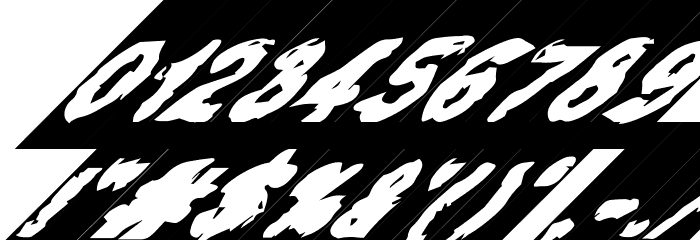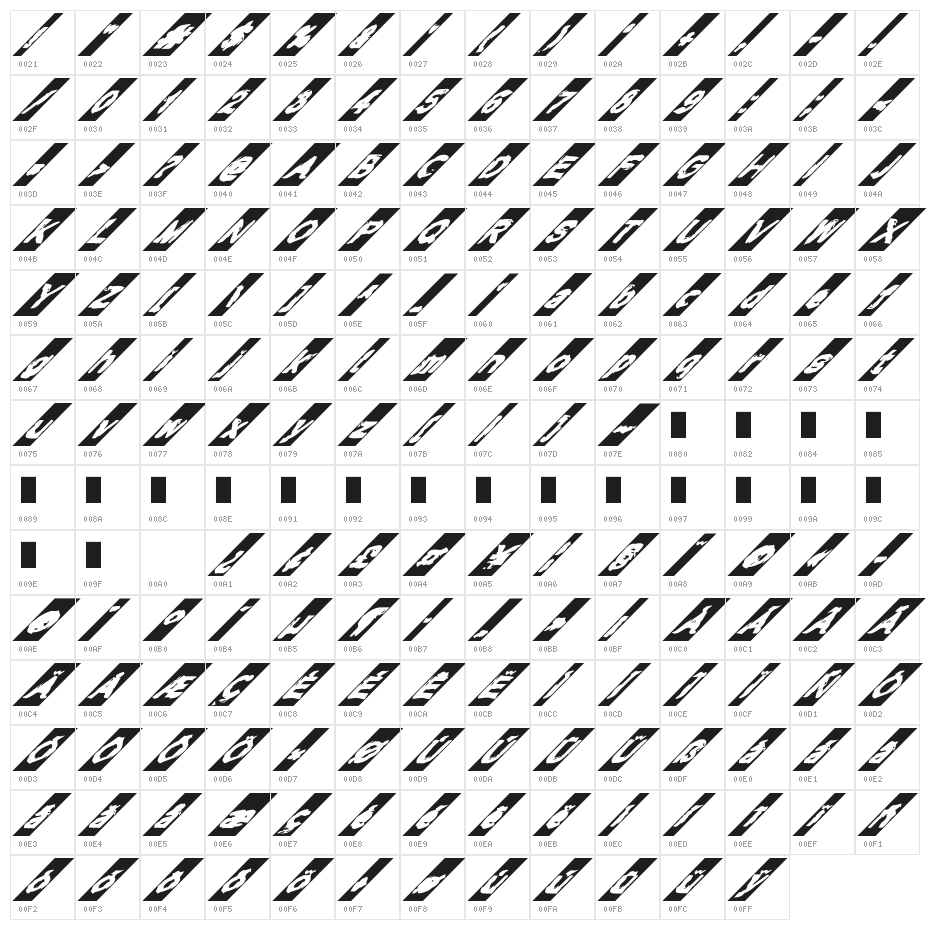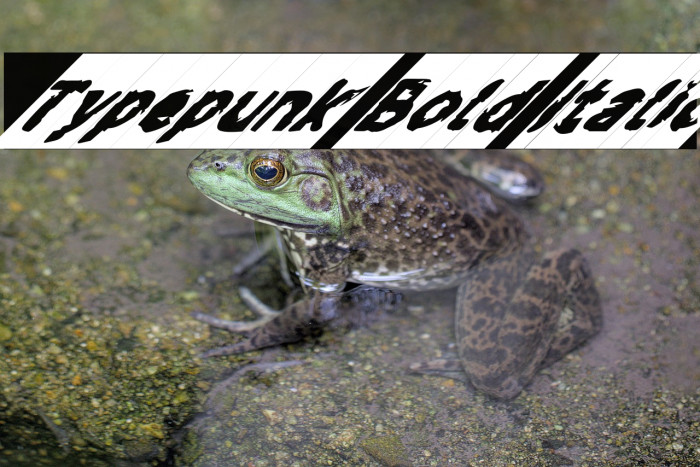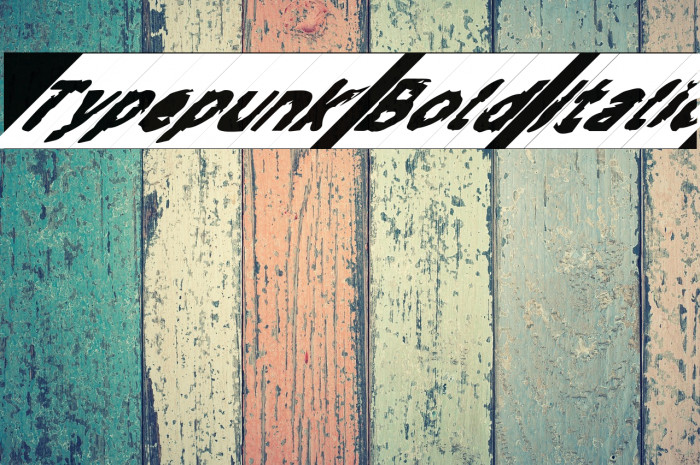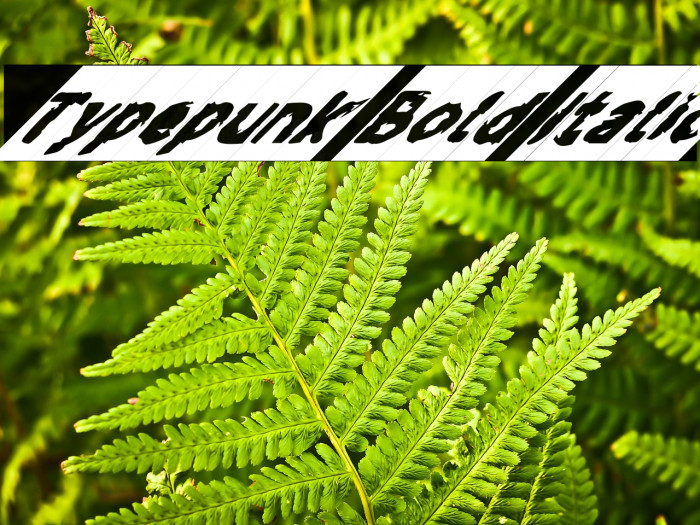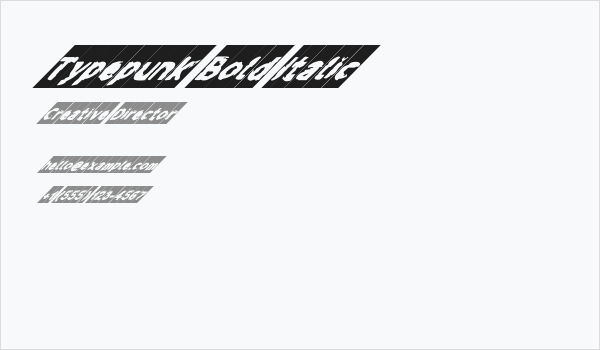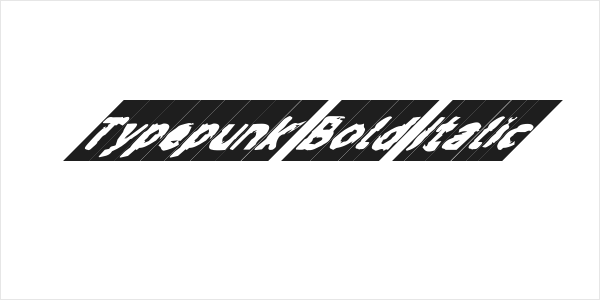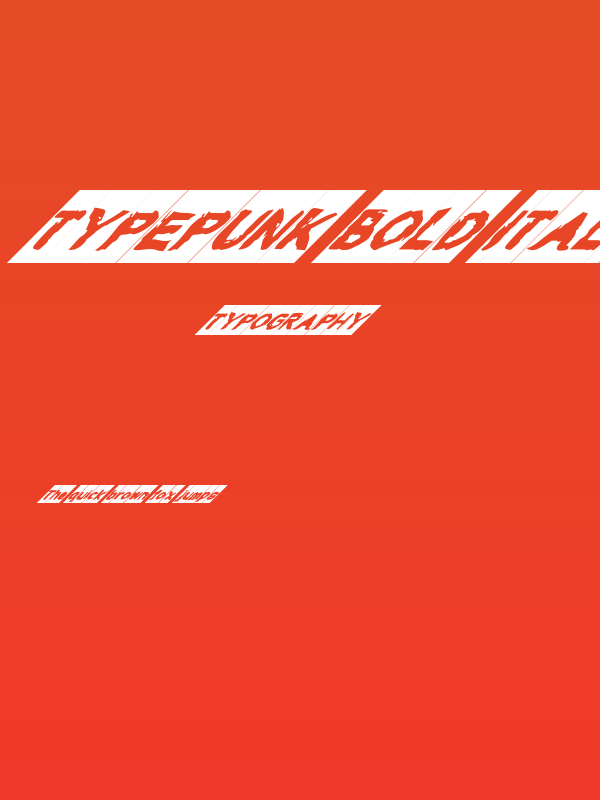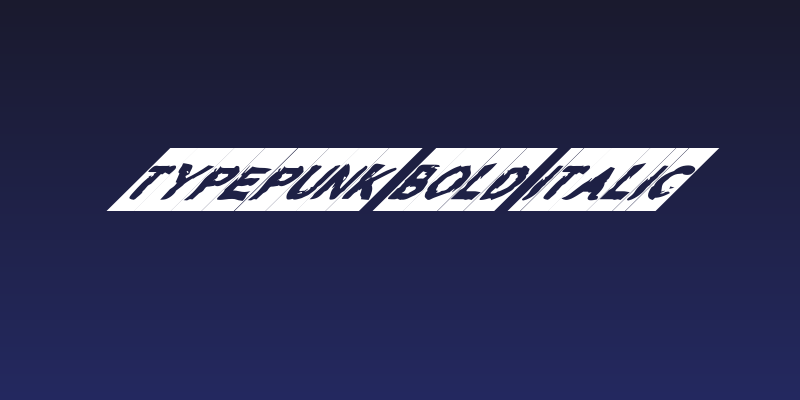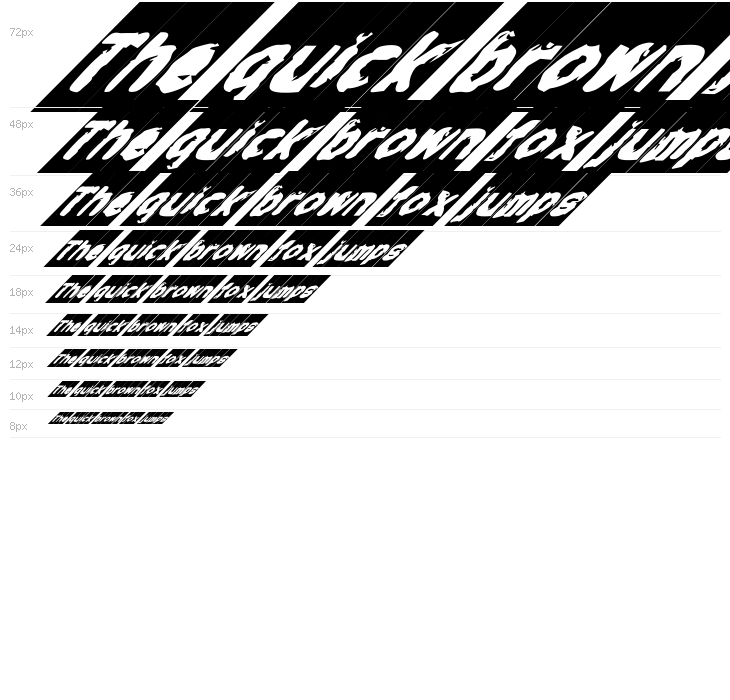
Typepunk Bold Italic Font
Typepunk Bold Italic Description
This font features a bold and italicized style with a distinctly modern and edgy appearance. The characters are designed with a dynamic, forward-leaning slant, giving a sense of motion and urgency. The strokes are thick and robust, with a high contrast between the thick and thin parts of each letter, enhancing its boldness. The edges are sharp and angular, contributing to its aggressive and futuristic look. This font is particularly suitable for projects that require a strong visual impact, such as branding for tech companies, video game titles, or sci-fi themed designs. Its unique style makes it stand out, ensuring that any text set in this font will capture attention.
| Proposed Projects | Ideal for tech branding, video game titles, sci-fi themes, and impactful headlines. |